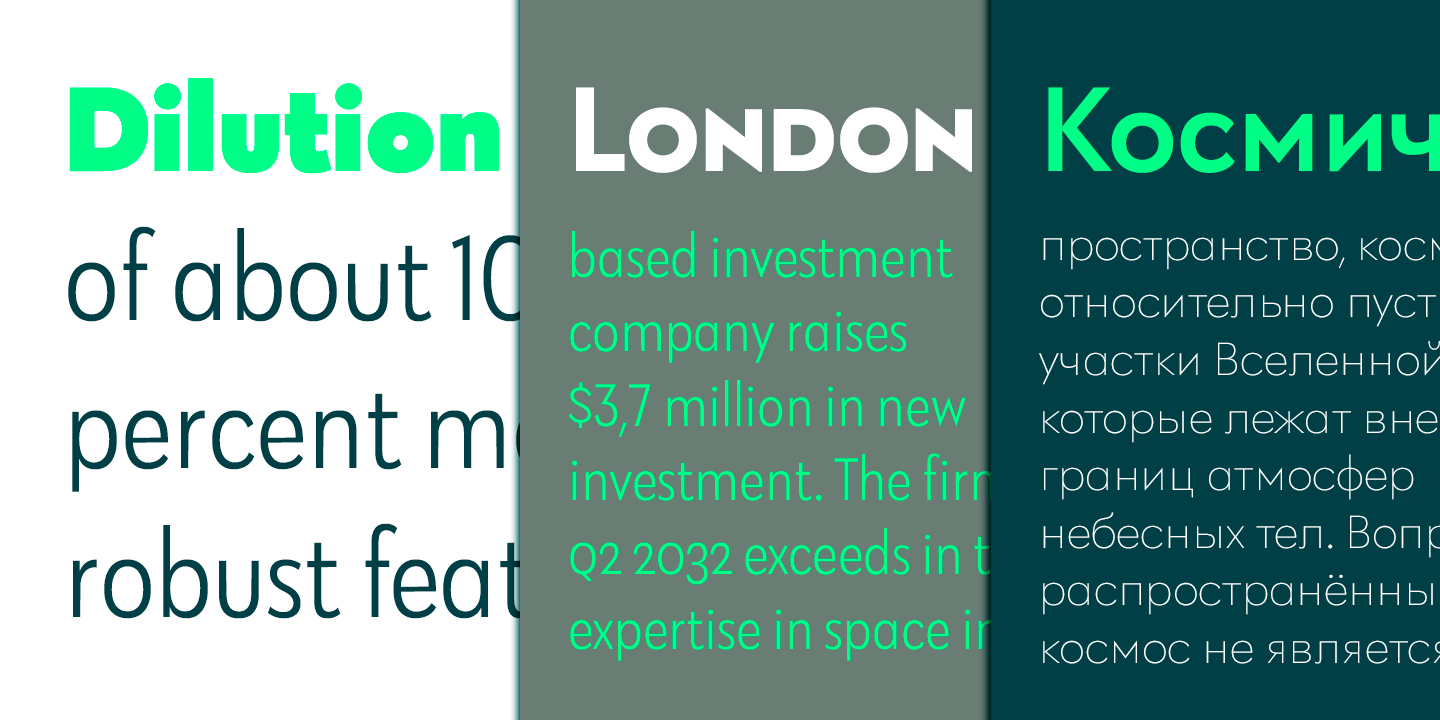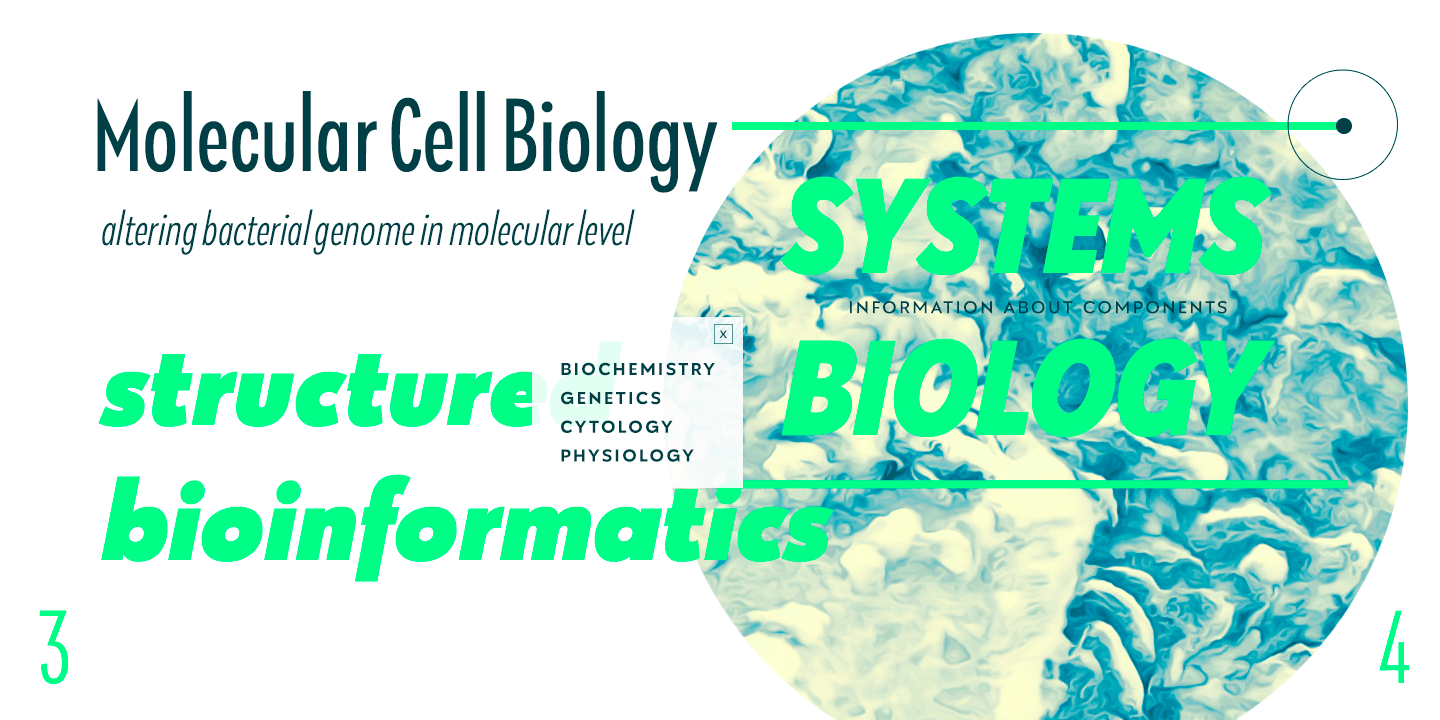
About Galatea
Galatea is a universal sans serif family ? clean and timeless. Both iconic and legible, Galatea is suited to cover many needs from brand identities to editorial design, advertising, logos and beyond. Cyrillic characters are featured and a wide range of…